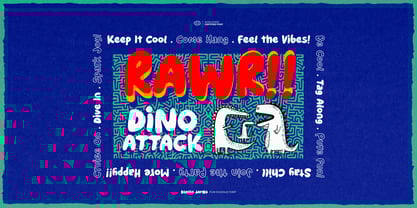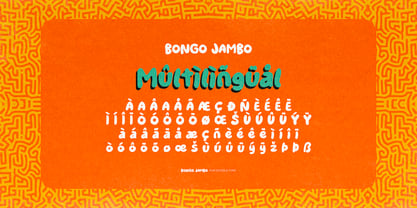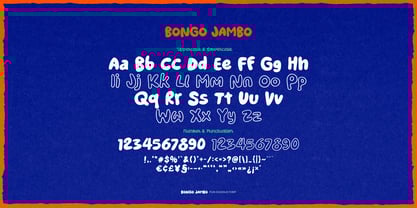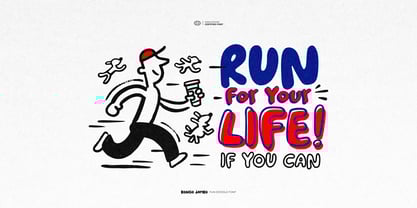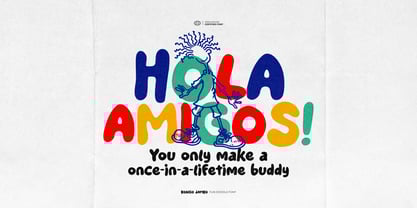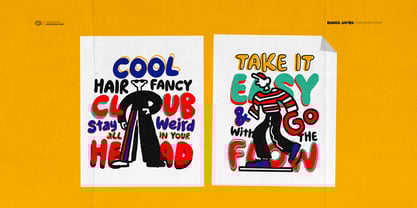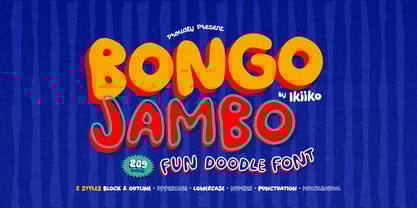
Bongo Jambo
by IKIIKOWRK
The Bongo Jambo Font Family was designed by Andhika Pradana and published by IKIIKOWRK. Bongo Jambo contains 2 styles and family package options. More about this family
Proudly Present Bongo Jambo - Fun Doodle Font, created by ikiiko
Meet Bongo Jambo, a fun and playful doodle font made to spread smiles! With its quirky shapes and hand drawn style, this font is all about happy vibes, colorful energy, and a little bit of fancy fun. Perfect for kiddies' designs, cheerful logos, candy-themed, or anything that needs a pop of joy.
Each letter looks like it jumped out of a sketchbook—organic, bouncy, and full of life. It’s great for storybooks, party invites, social posts, or bold, playful headlines. If you love doodles, colors, and anything cute.
This font feels like childhood—scribbles, giggles, and sweet, creative chaos. Use it to make your design feel fun, friendly, and full of personality. Mambo Jumbo isn’t just a font—it’s a little celebration on every page!
• 2 Styles : Block & Outline
• Uppercase & Lowercase
• Numbers & Punctuation
• Multilingual Support
Designers: Andhika Pradana
Foundry: IKIIKOWRK